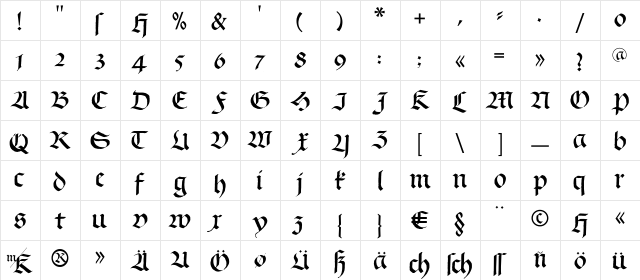
Schwabach Regular
Design Context for Schwabach Typeface
Schwabach takes a measured approach to typography — its balanced proportions and neutral character make it a reliable workhorse for both digital and print work.